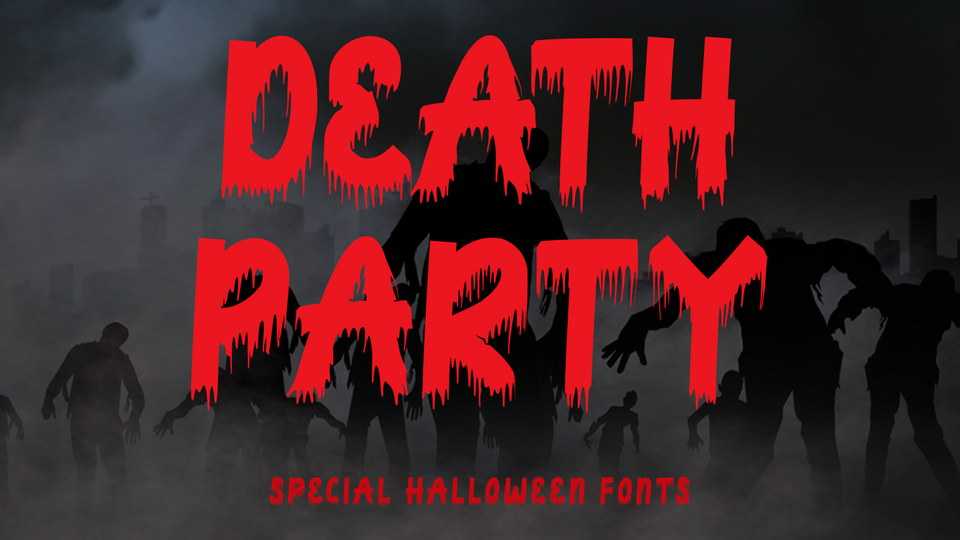
Download Death Party font, a special Halloween typeface that will make your Halloween party even more scary and total in welcoming the Halloween party. This font is very easy to use because it has been specially designed.